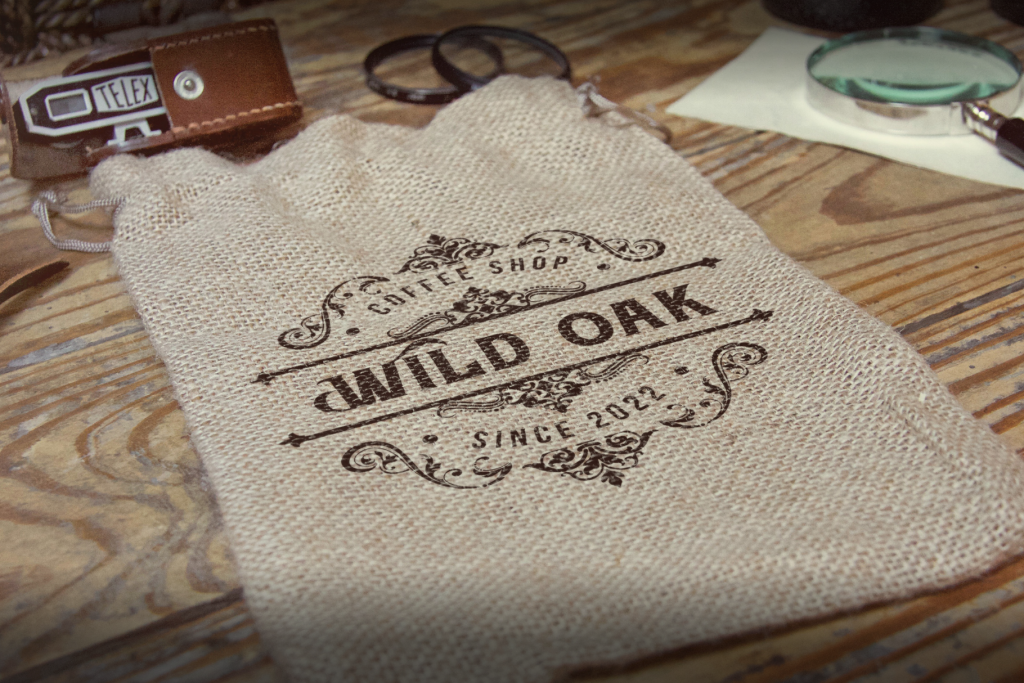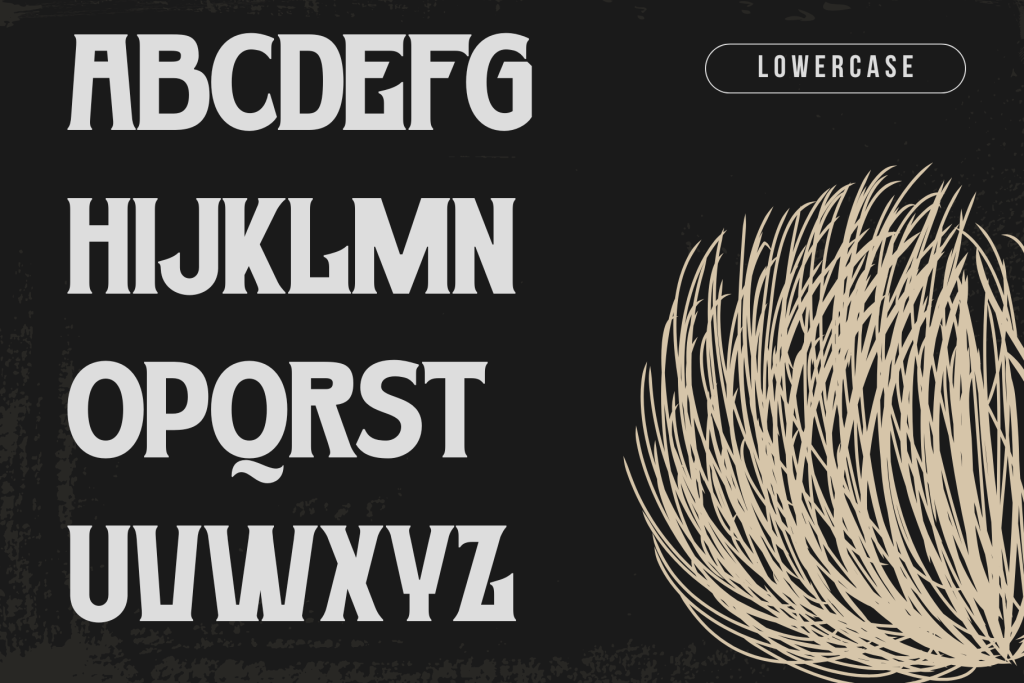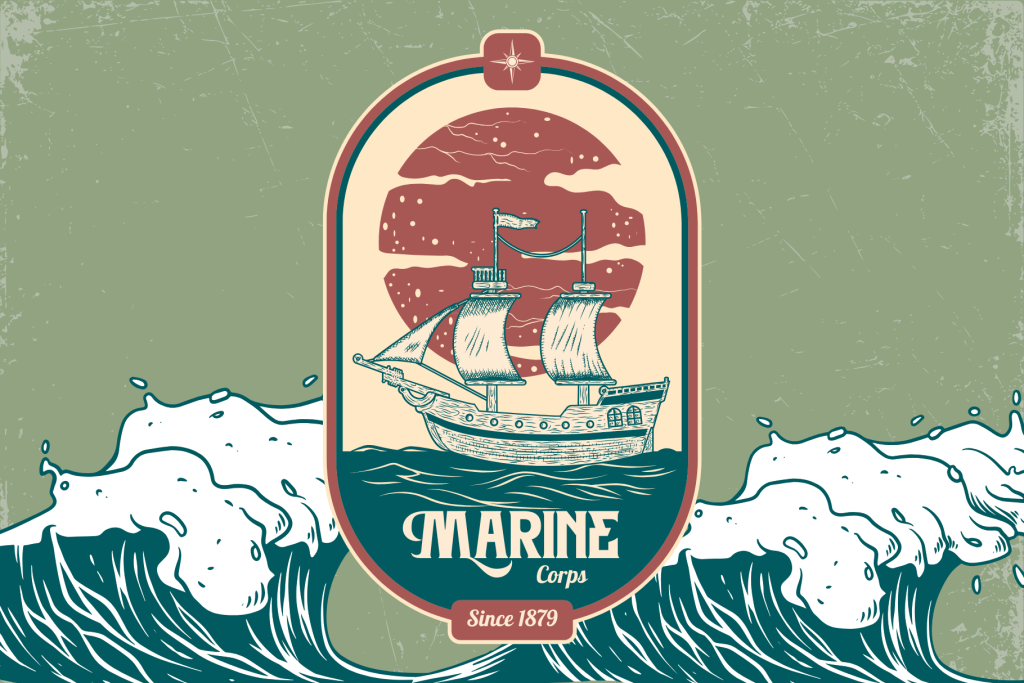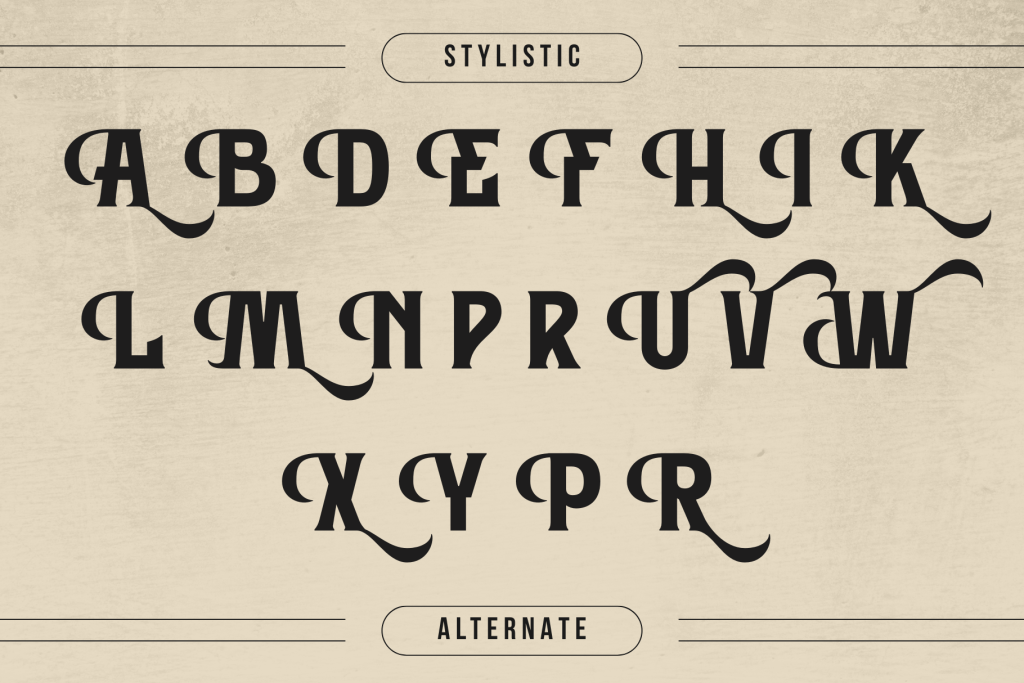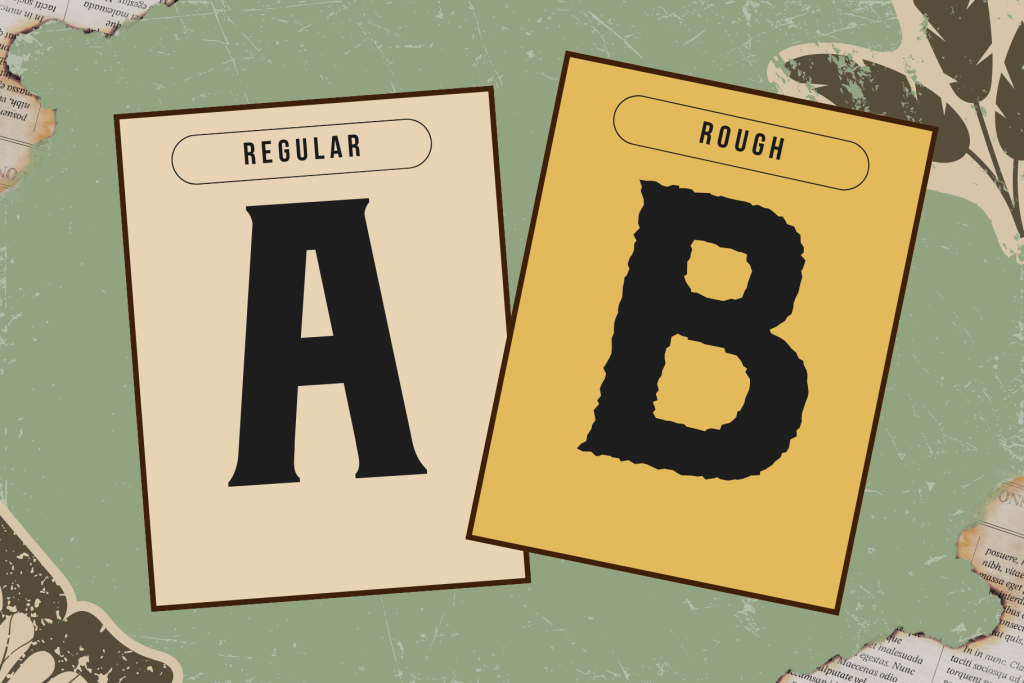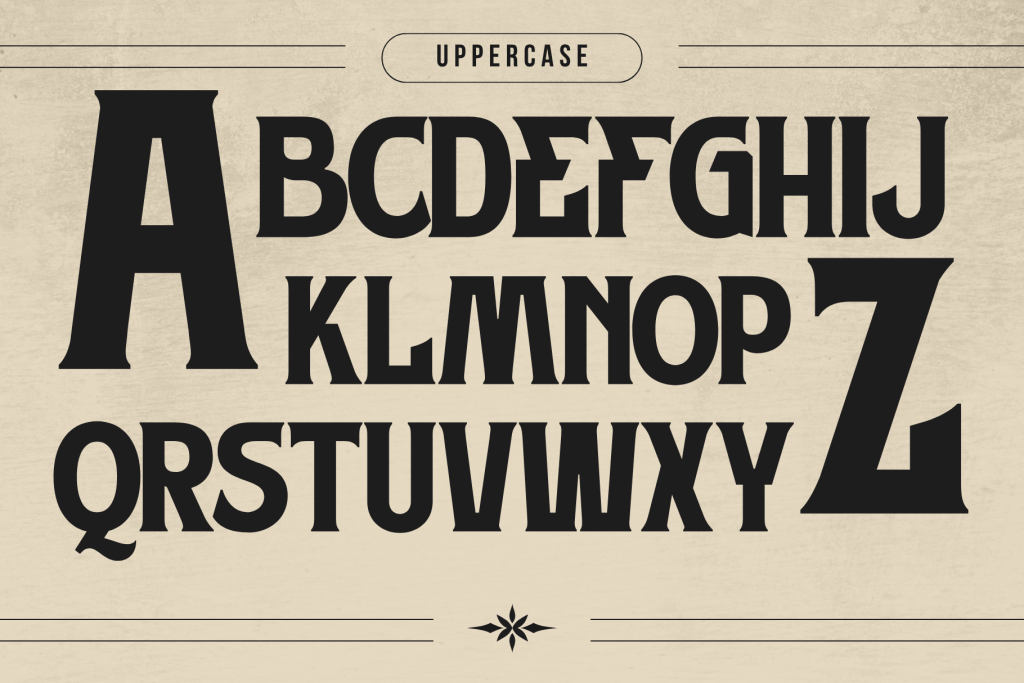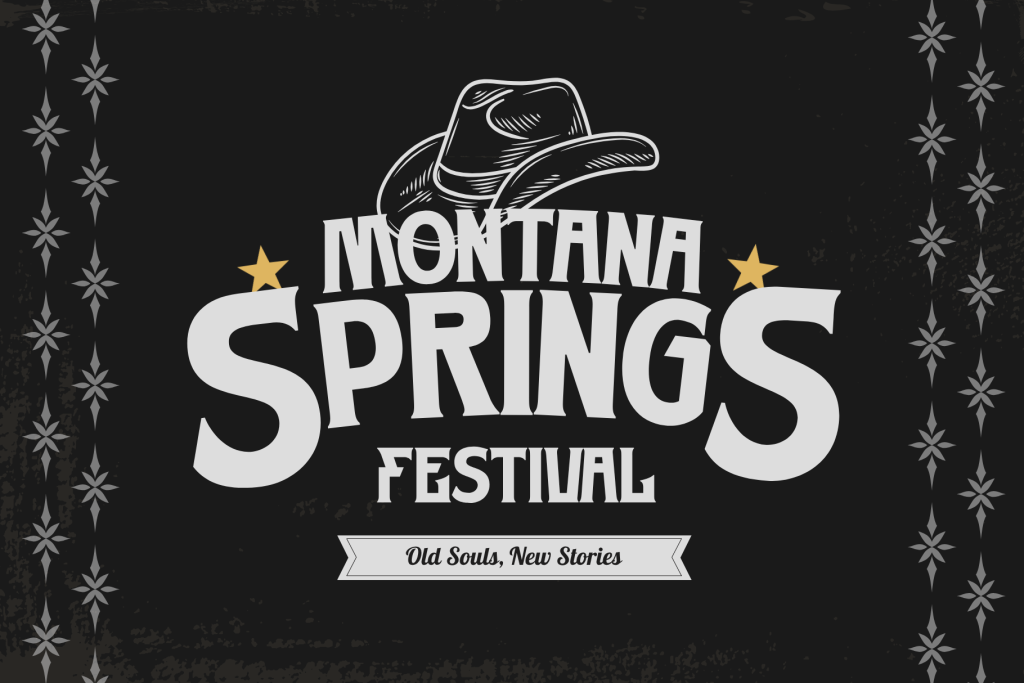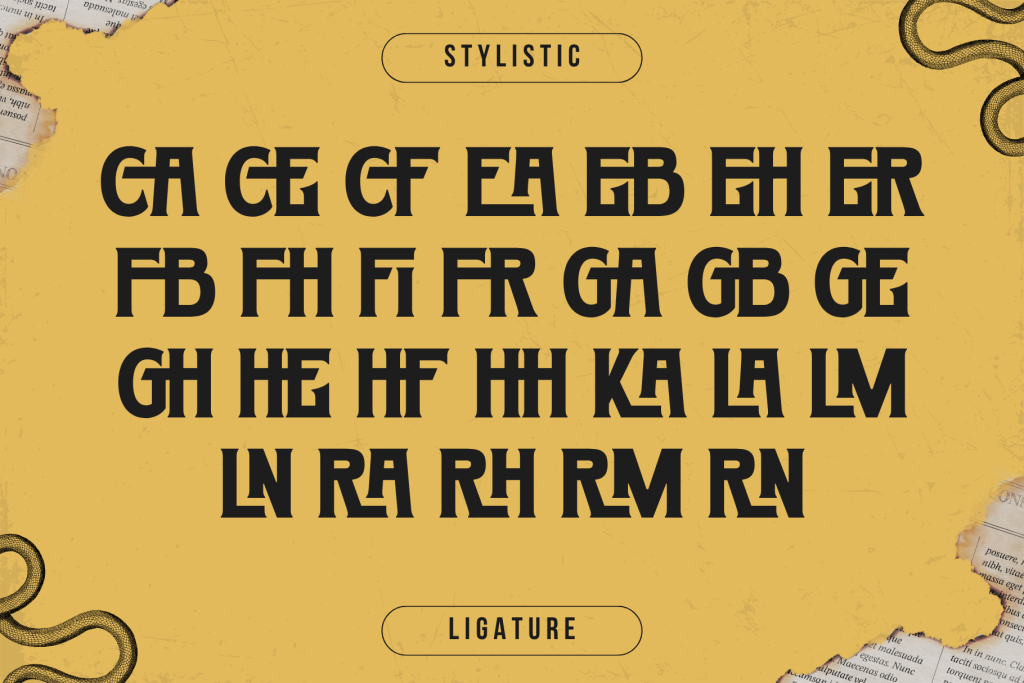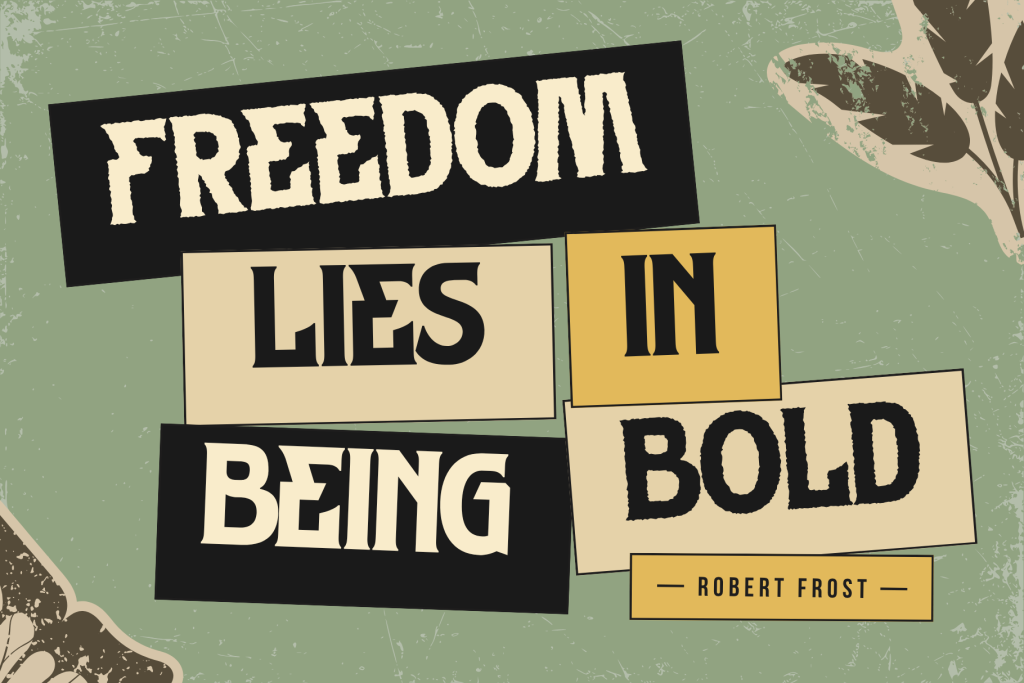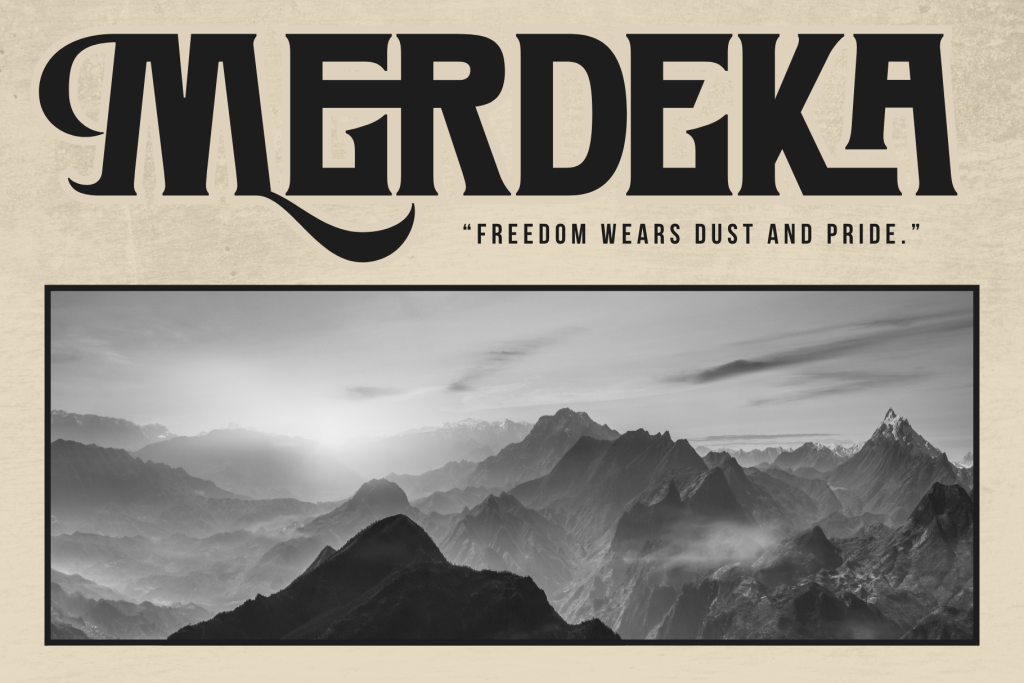
Dusborne Vintage offers beautiful typographic harmony for a diversity of design projects, including logos & branding, social media posts, advertisements & product designs.